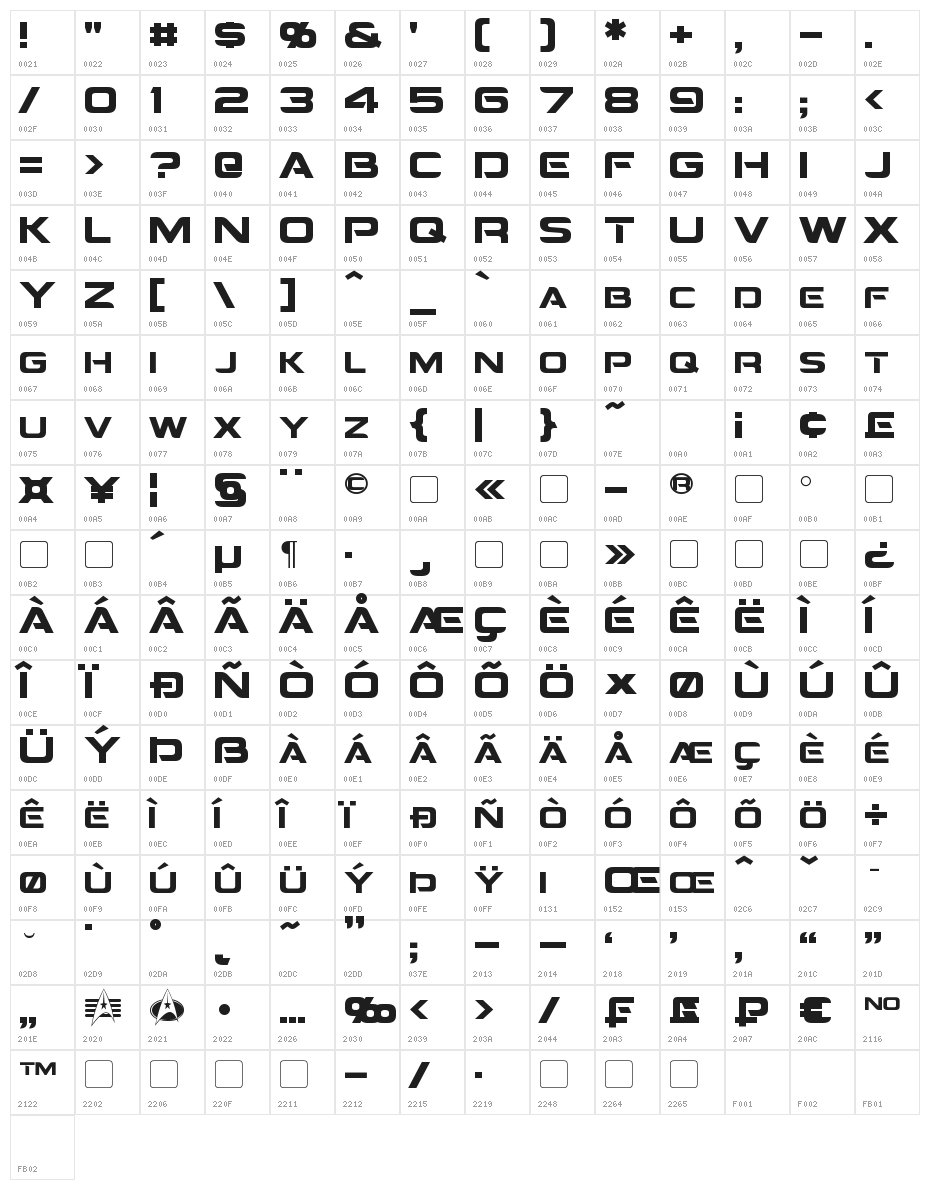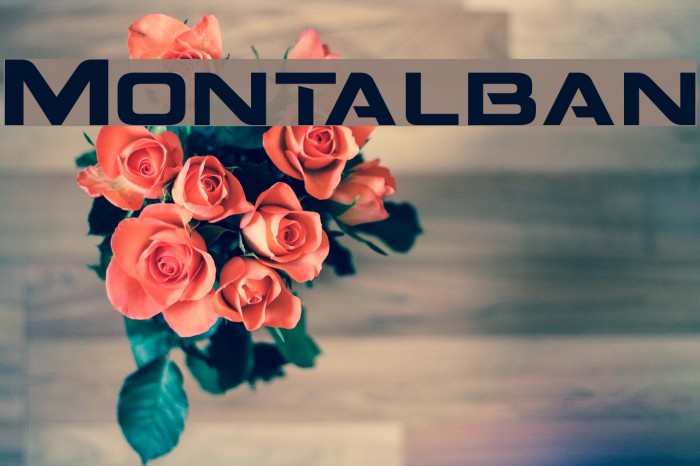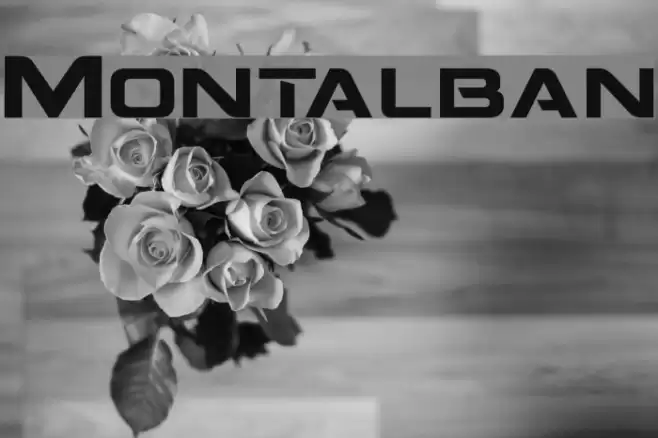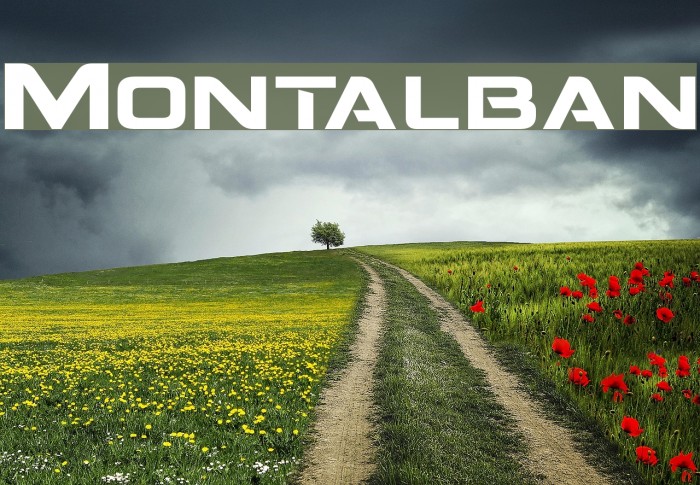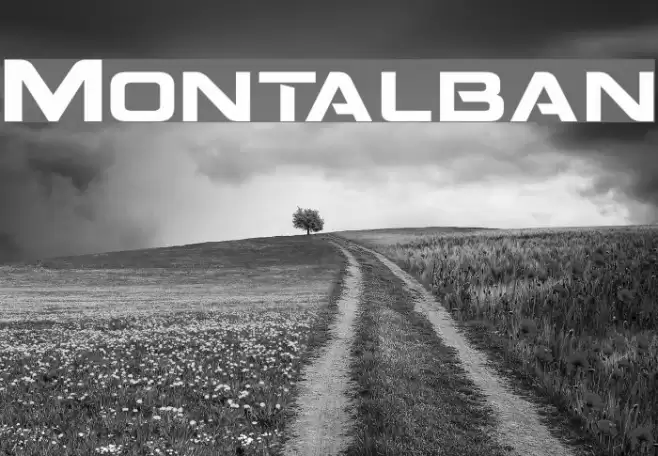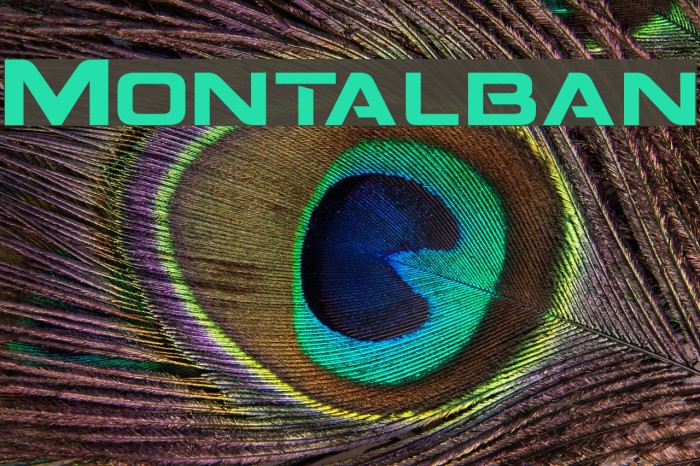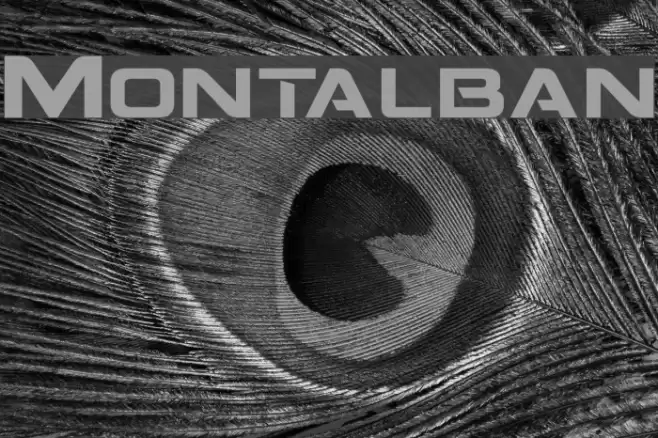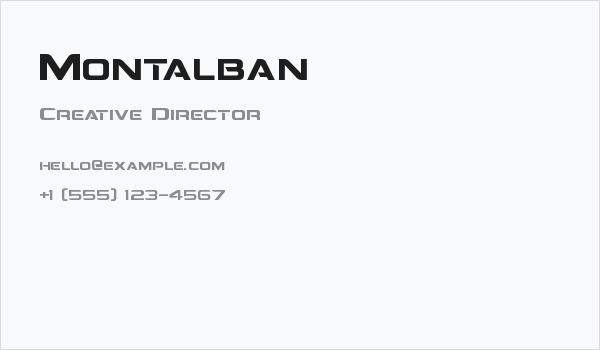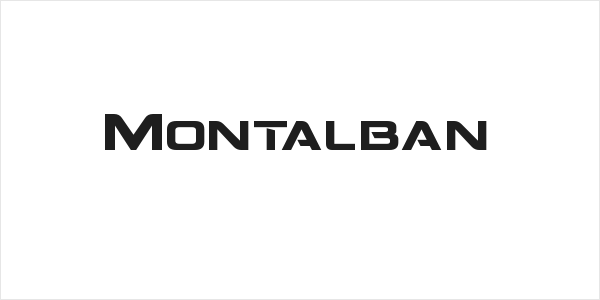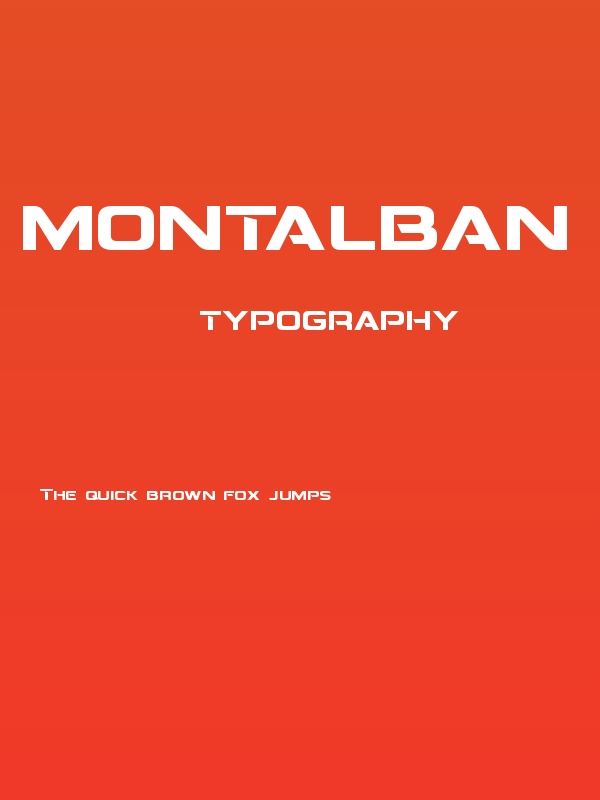
Montalban Font
This font features a bold, geometric design with a futuristic flair. The characters are constructed with sharp angles and clean lines, giving it a modern and sleek appearance. The uppercase letters are particularly striking, with a uniform height and width that creates a cohesive look. The numbers and special characters maintain the same boldness and angular style, ensuring consistency across all text. This font is ideal for projects that require a strong, impactful presence, such as technology branding or sci-fi themed designs.
| Proposed Projects | Ideal for technology branding, sci-fi themed designs, and impactful headlines. |